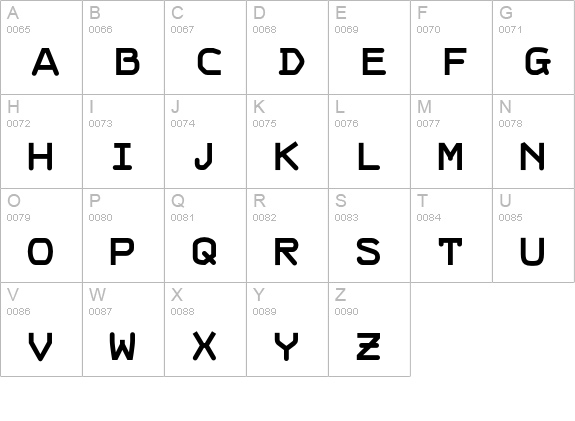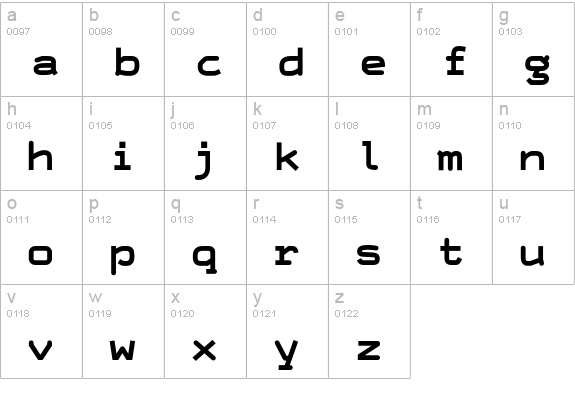
HardCase-DemiBold Font Details
HardCase-DemiBold is a sub-bold, structured variant in the HardCase typeface family \xE2\x80\x94 well suited to sub-headlines and emphasised passages.
Introducing HardCase-DemiBold font, the perfect blend of strength, resilience, and modernity. This font exudes an air of confidence, making it the ideal choice for any project that calls for a bold and impactful statement. HardCase-DemiBold is designed with meticulous attention to detail, ensuring its sleek and sharp appearance on both digital and print platforms. Its bold and sturdy letterforms create a commanding presence, demanding attention and leaving a lasting impression on your audience. This font showcases a unique balance between contemporary aesthetics and timeless appeal. Whether you're designing a logo, creating headlines, or crafting a striking poster, HardCase-DemiBold effortlessly adds a touch of sophistication to your work. But what sets HardCase-DemiBold apart is its accessibility. We believe that creativity should be free and unrestricted. That's why we are thrilled to offer this remarkable font for free download at FontsMarket.com. This means that anyone can effortlessly access and utilize HardCase-DemiBold to elevate their designs without any constraints or limitations. Embrace the power and versatility of HardCase-DemiBold font, and unlock a world of possibilities for your creative endeavors. With its strong presence, modern appeal, and free availability, HardCase-DemiBold is a must-have tool for designers, typographers, and creative enthusiasts alike. Download it today at FontsMarket.com and experience the true potential of this extraordinary font.